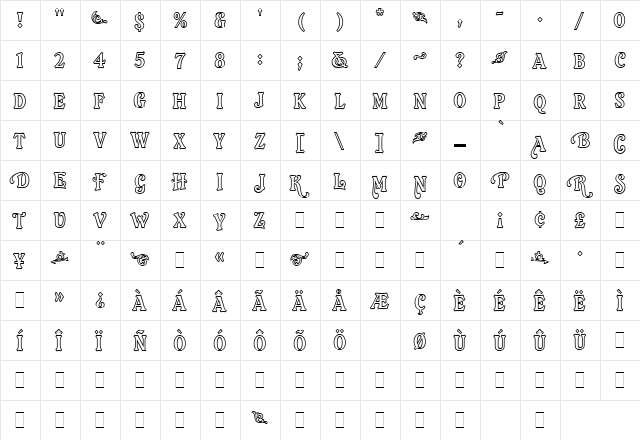
Orlando LET Plain
Design Context for Orlando LET Typeface
Orlando LET is a composed and adaptable typeface that performs quietly and consistently across a wide range of design contexts.